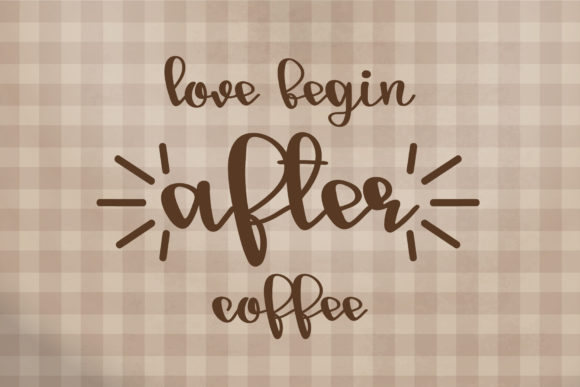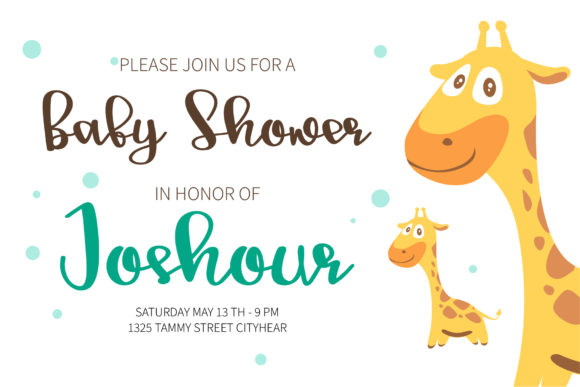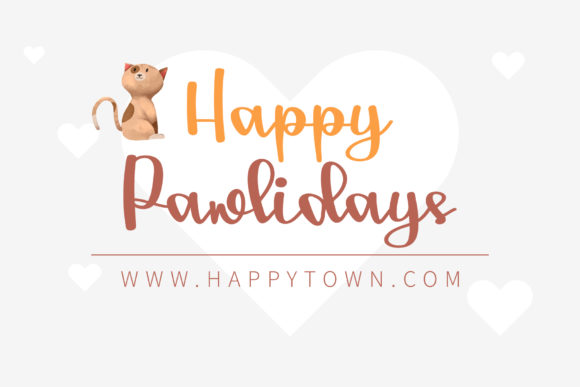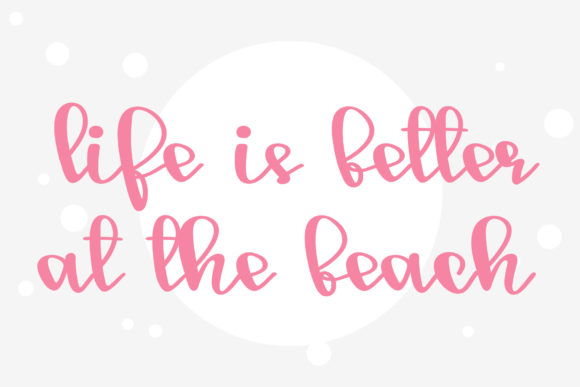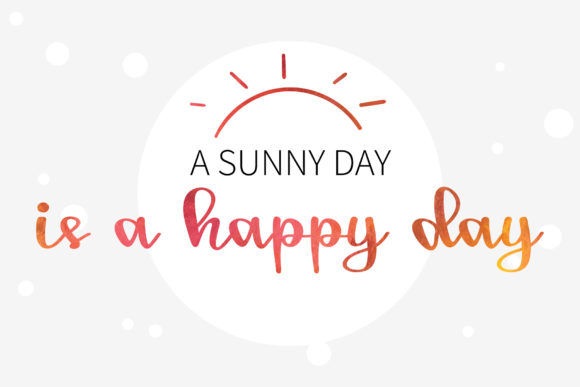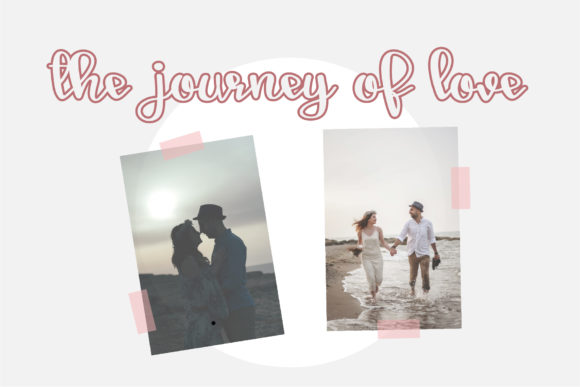
Introducing Good Morning Font: Elevate Your Designs with a Gorgeous Script Font
Are you tired of using the same old fonts in your designs? Look no further than Good Morning Font, a stunning script font that’s sure to take your creative projects to the next level. With its natural and unique style, Good Morning Font is incredibly versatile and can be used in a wide range of designs, from elegant wedding invitations to playful craft projects. The only limit is your imagination!
The Beauty of Good Morning Font
Good Morning Font is a gorgeous script font that’s designed to add a touch of elegance and sophistication to any design. Its flowing lines and natural curves make it perfect for creating beautiful, eye-catching text that will draw the viewer in. Whether you’re a professional designer or a crafty DIY enthusiast, Good Morning Font is sure to inspire your creativity and help you create stunning designs that will leave a lasting impression.
What Makes Good Morning Font So Special?
So, what sets Good Morning Font apart from other fonts? Here are just a few reasons why Good Morning Font is a cut above the rest:
- Unique and Natural Style: Good Morning Font has a one-of-a-kind style that’s both natural and elegant. Its flowing lines and curves make it perfect for creating beautiful, eye-catching text that will draw the viewer in.
- Versatility: Good Morning Font is incredibly versatile and can be used in a wide range of designs, from elegant wedding invitations to playful craft projects.
- Easy to Read: Despite its elegant and cursive style, Good Morning Font is surprisingly easy to read, making it perfect for use in both digital and print designs.
How to Use Good Morning Font in Your Designs
Good Morning Font is perfect for a wide range of design projects, including:
- Wedding Invitations: Add a touch of elegance and sophistication to your wedding invitations with Good Morning Font.
- Craft Projects: Use Good Morning Font to add a personal touch to your craft projects, such as scrapbooking, card making, and DIY gifts.
- Digital Designs: Good Morning Font is perfect for use in digital designs, such as social media graphics, blog posts, and website headers.
Tips and Tricks for Getting the Most Out of Good Morning Font
Here are a few tips and tricks for getting the most out of Good Morning Font:
- Experiment with Different Sizes and Colors: Don’t be afraid to experiment with different sizes and colors to find the perfect look for your design.
- Pair with Other Fonts: Good Morning Font pairs perfectly with other fonts, so don’t be afraid to get creative and try out different combinations.
- Use in Combination with Images: Good Morning Font looks stunning when used in combination with images, so try incorporating it into your designs to add an extra touch of elegance.